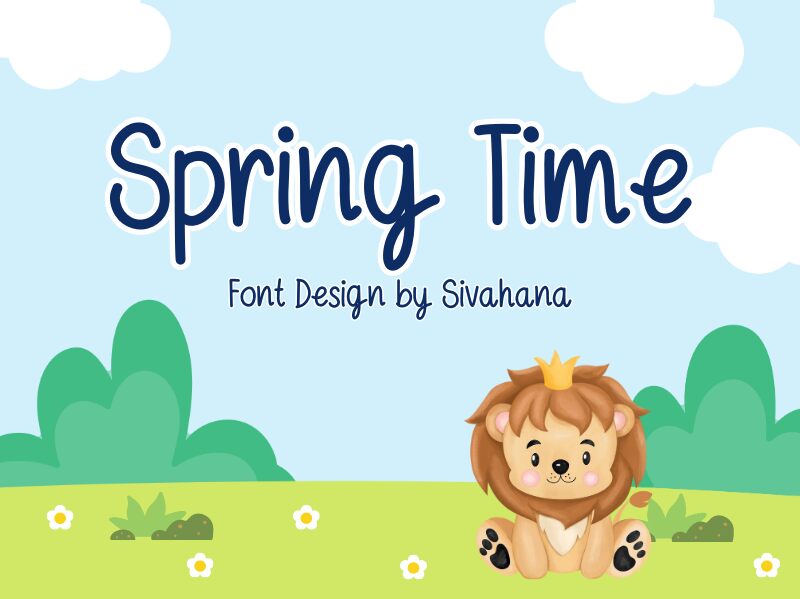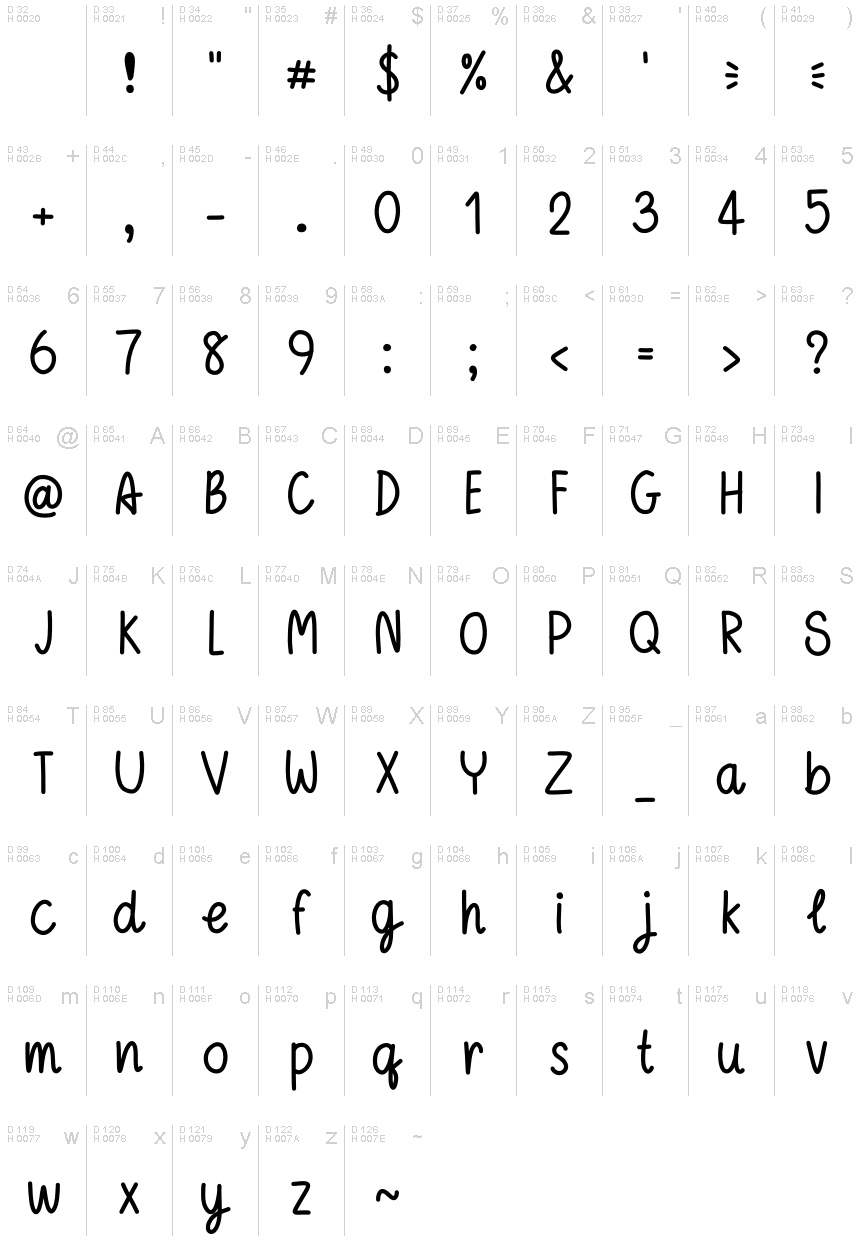
Spring time Regular
Spring Time, a captivating handwritten font created by Sivaporn Yutitham, exudes a delightful and whimsical charm. This fluid, organic script effortlessly captures the essence of springtime, with each letter flowing gracefully across the page. The font's natural, expressive strokes evoke a sense of warmth and youthfulness, making it an ideal choice for projects seeking a touch of playfulness and authenticity.
This versatile font can elevate a wide range of design projects, from greeting cards and stationery to branding and packaging. Its adaptability allows it to seamlessly integrate into various contexts, from feminine and romantic designs to modern and minimalist aesthetics. Spring Time's versatility makes it a valuable asset for designers and creatives seeking to infuse their work with a touch of whimsy and timeless elegance.